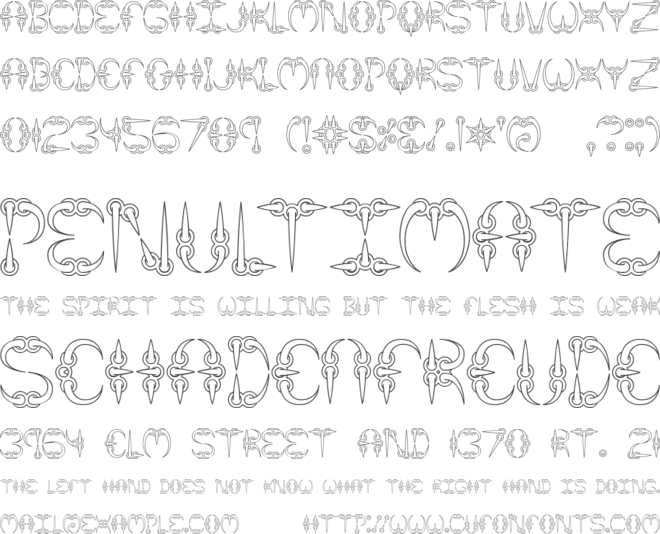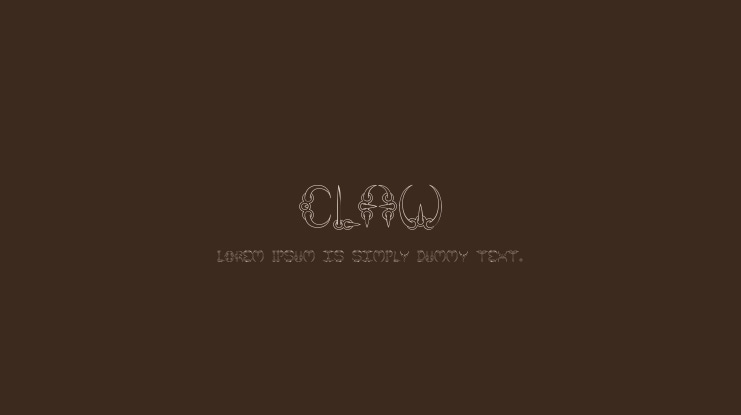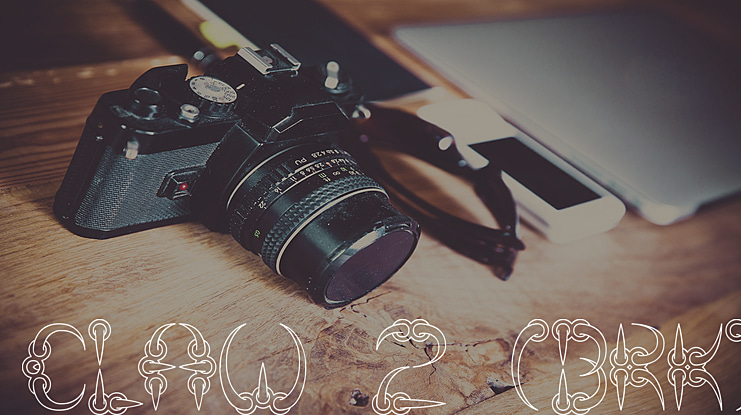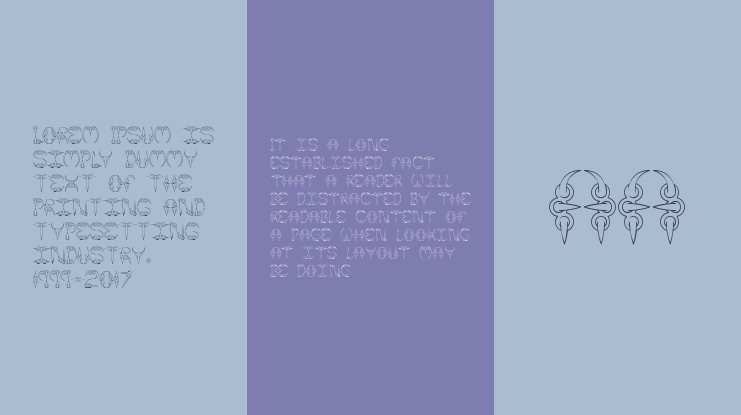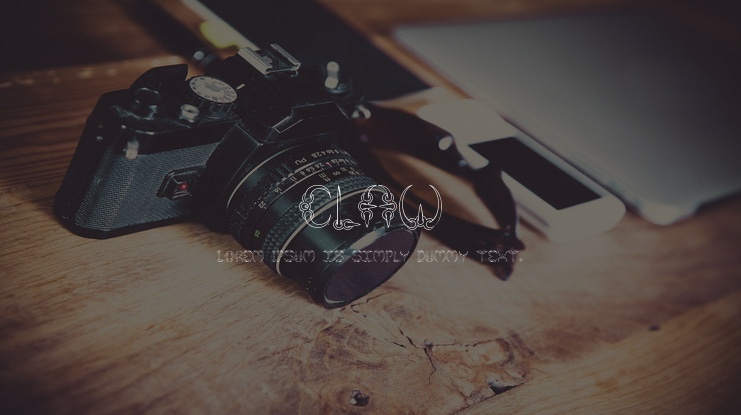
Claw Font
This font is best used at LARGE point sizes.
I've included 2 CLAW fonts. They're exactly the same but with these
differences:
> CLAW 1 - Characters imported into Fontographer. The characters are
a bit larger that CLAW 2's characters.
> CLAW 2 - Characters imported into ScanFont/FontLab. The characters
are a bit more detailed than CLAW 1's characters.
When importing .ai and/or .eps files into ScanFont and FontLab, the
characters show up smaller, but are more detailed. Scaling them within
ScanFont/Fontlab only messes them up (the font is displayed as a
different (default) font in most programs). When importing .ai and/or
.eps files into Fontographer, the character sizes are correct but the
lines and curves are 'Degraded'. You probably won't notice any
differences unless you zoom in really close to the characters of each
font. I just decided to include both fonts.
CLAW 2 -BRK- Ver 1.000 𑁋 Modified at Oct 22, 2001
CLAW 2 -BRK- font